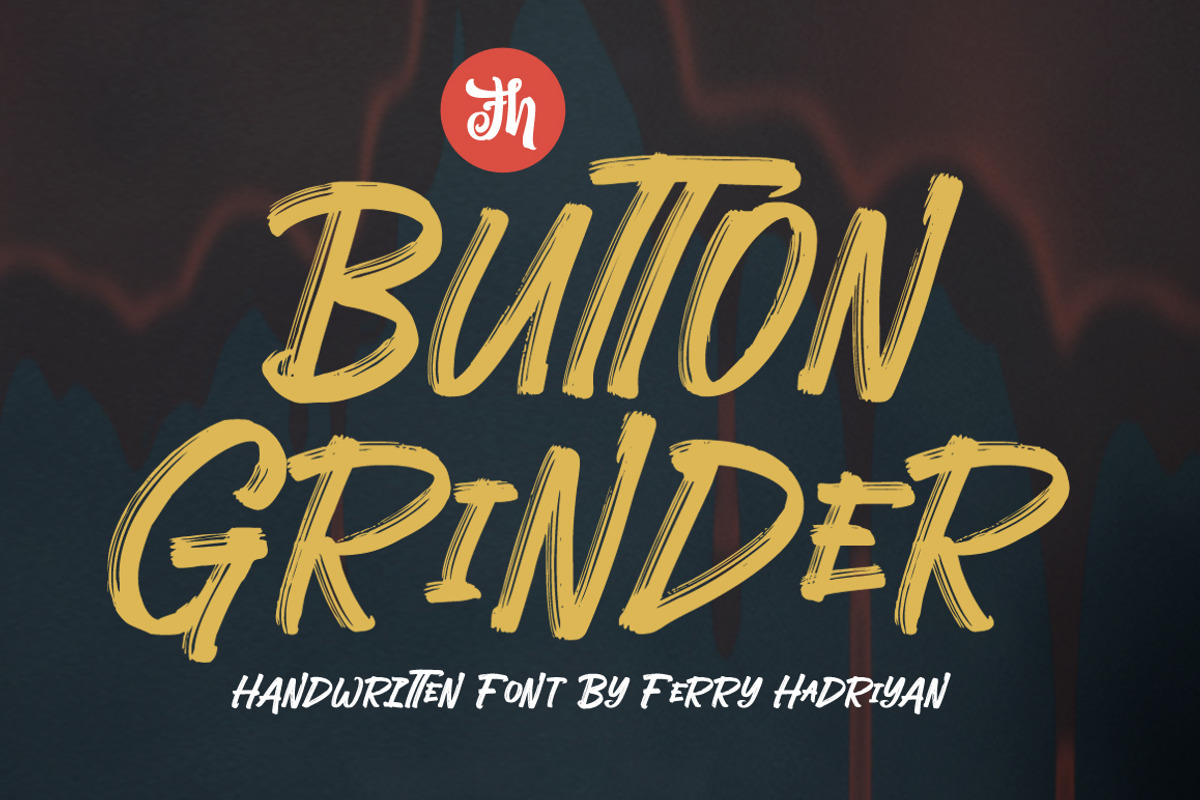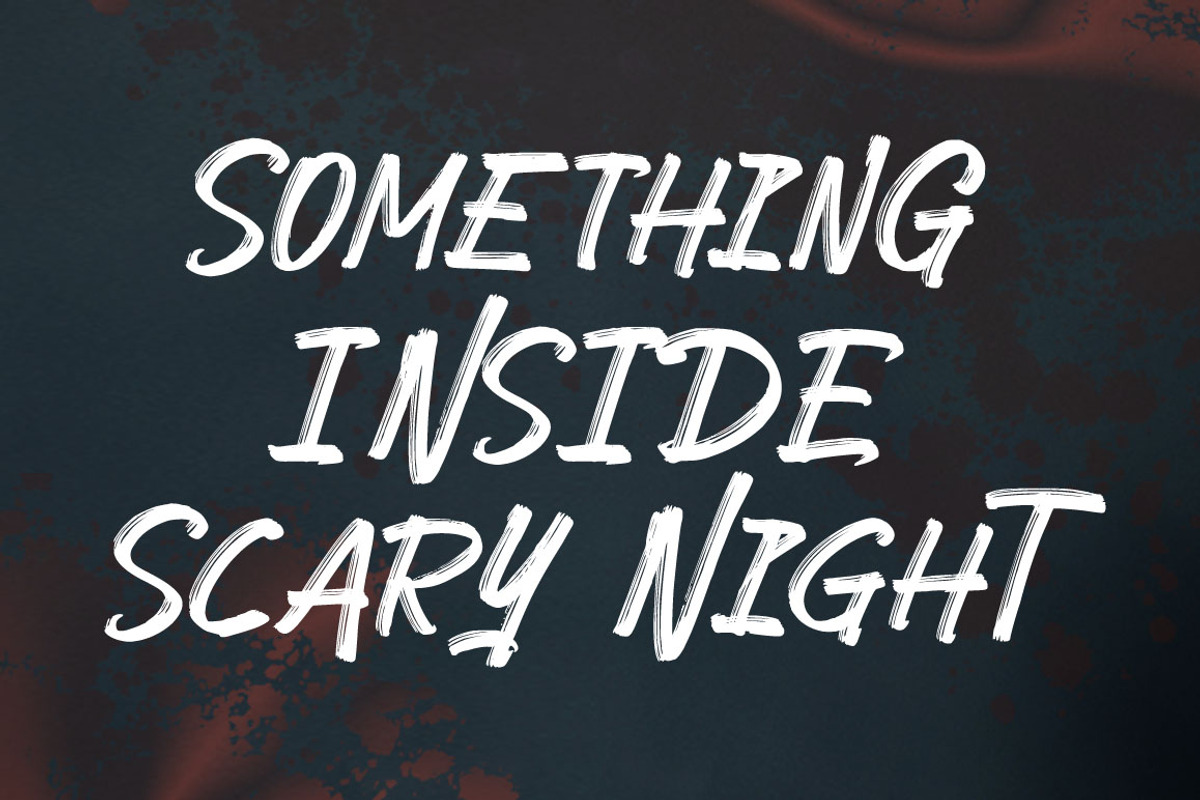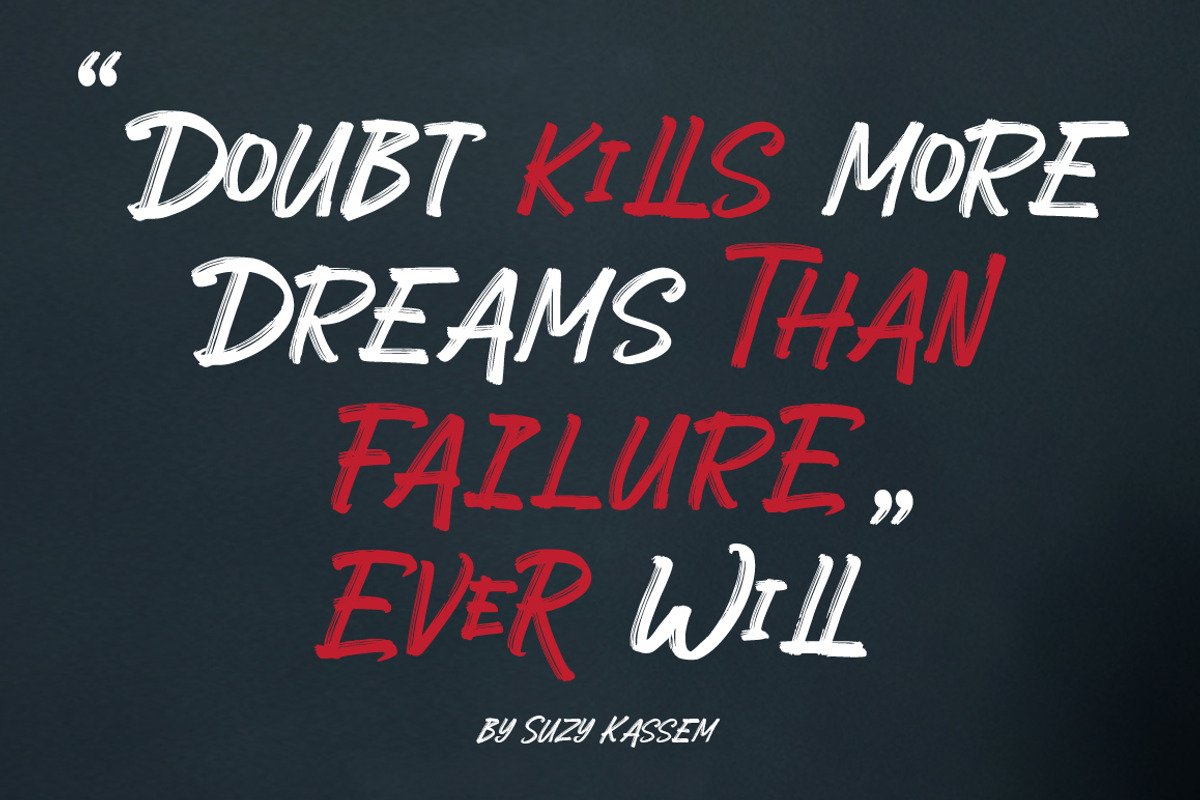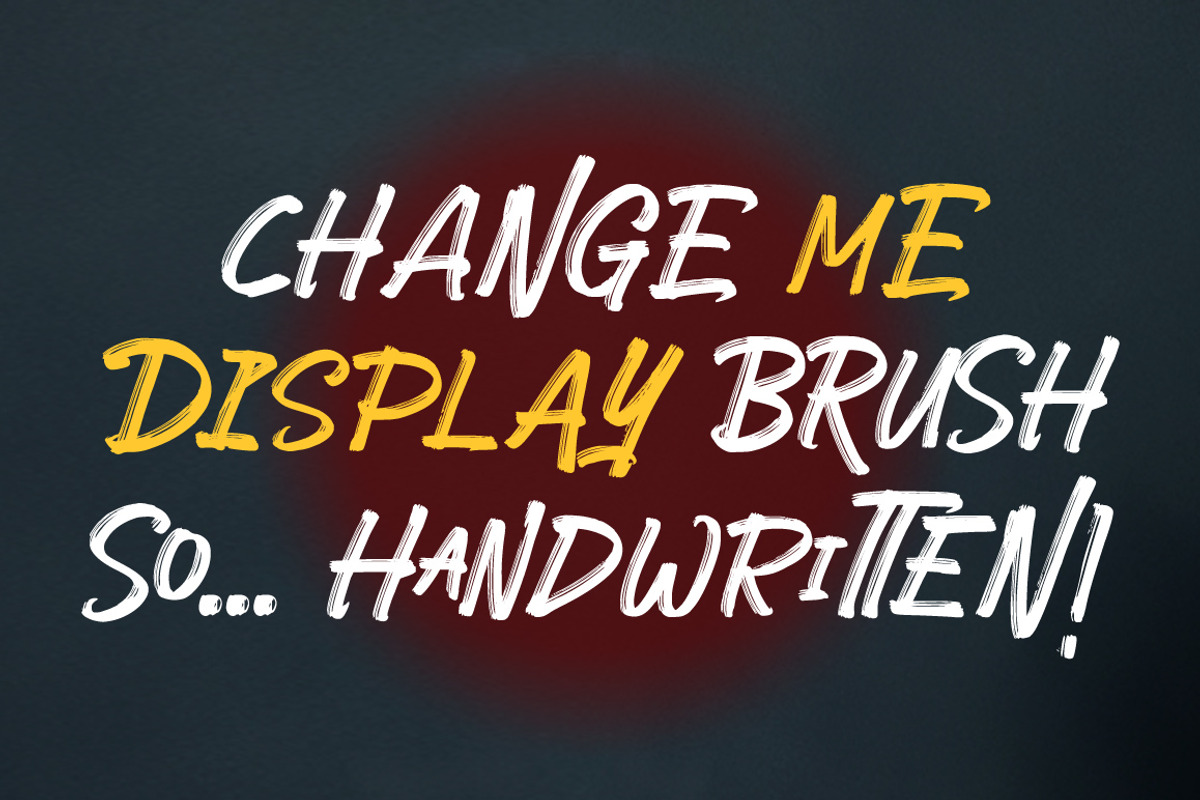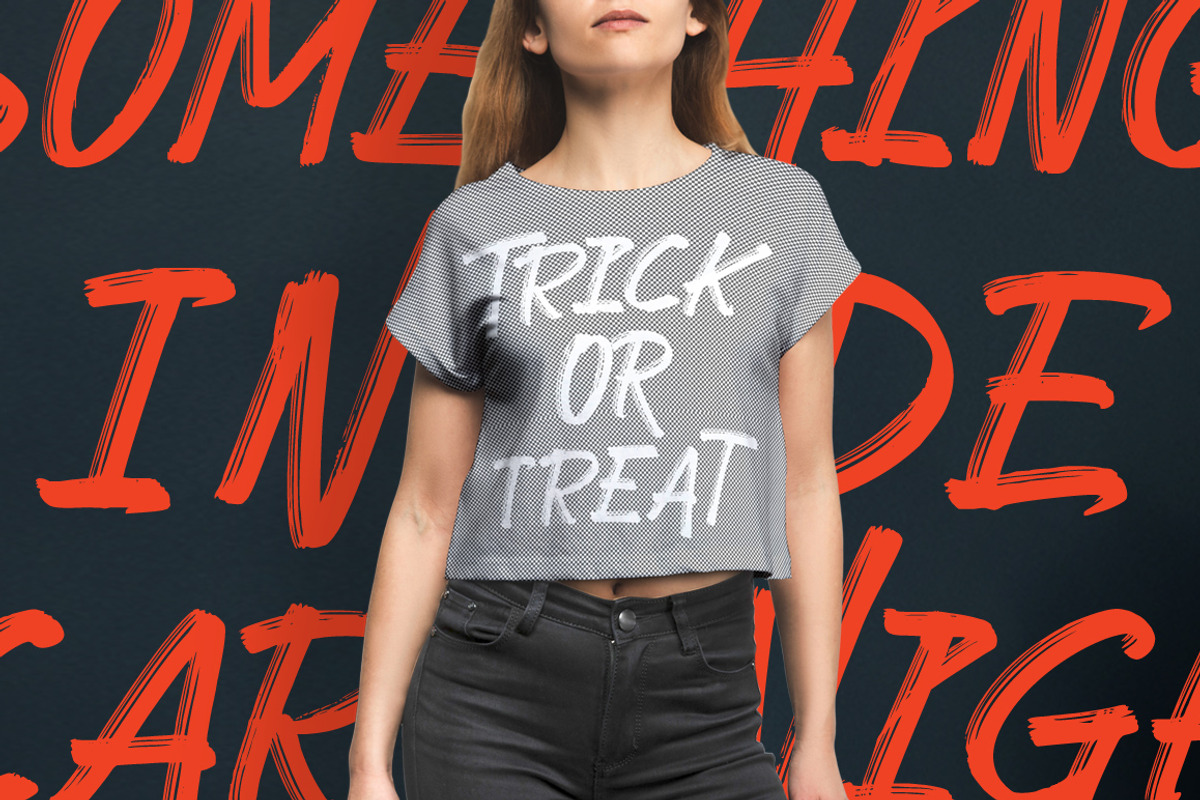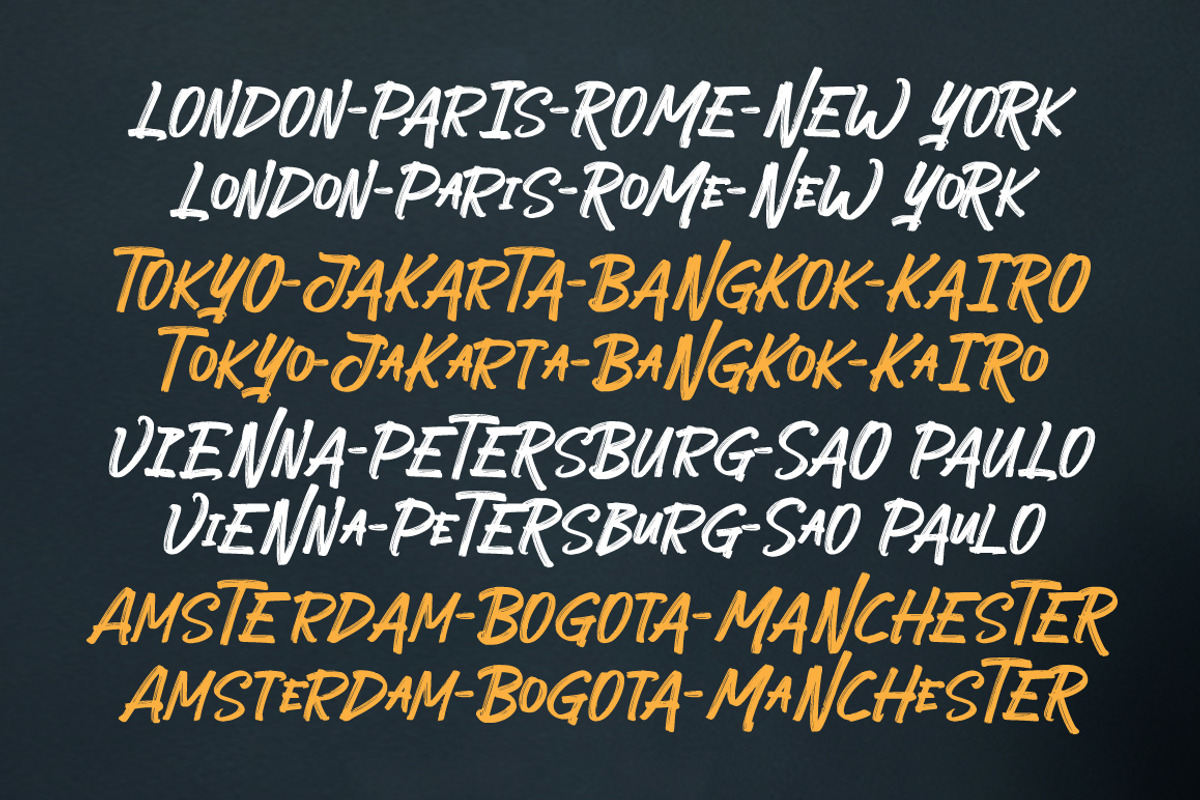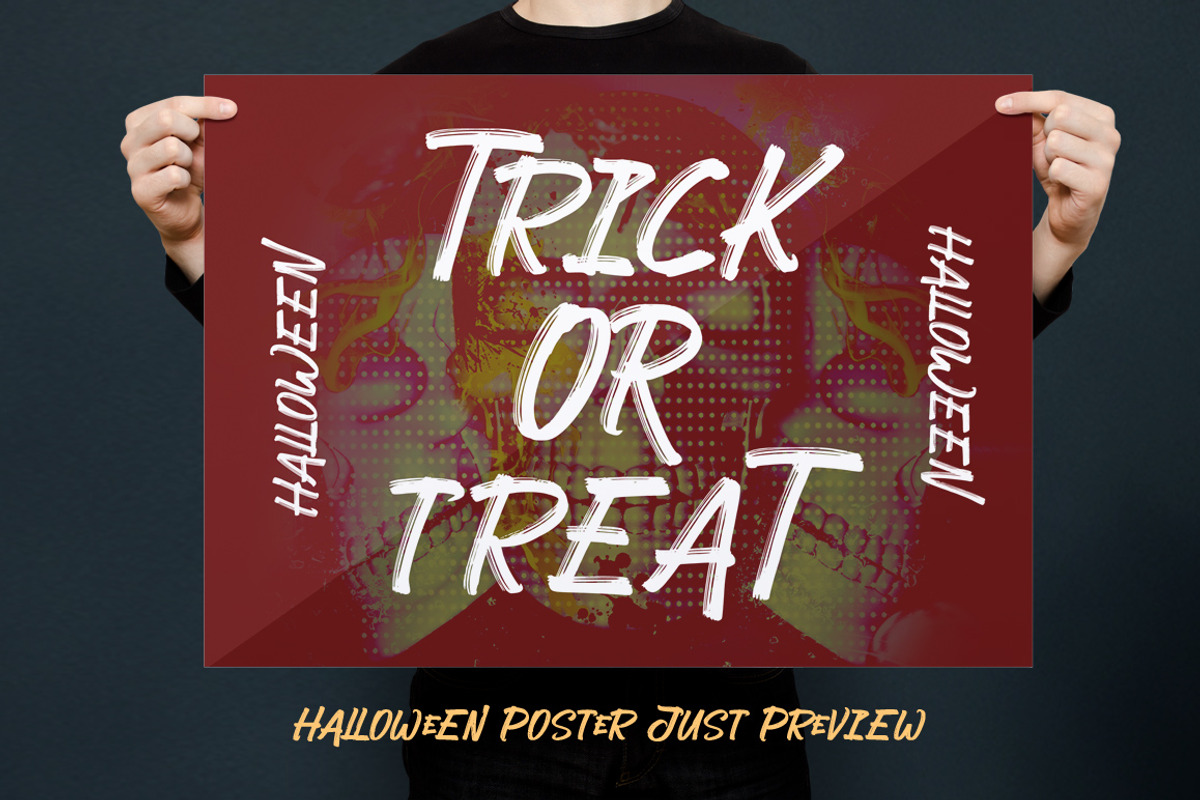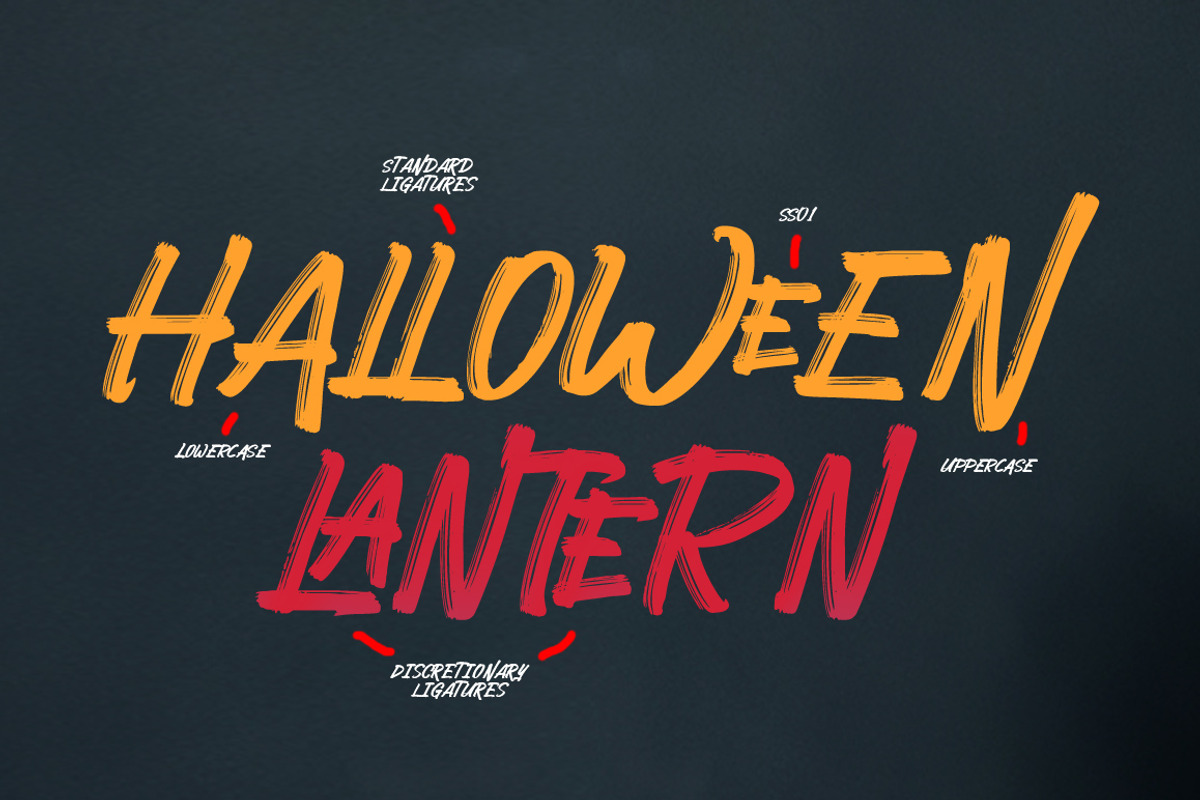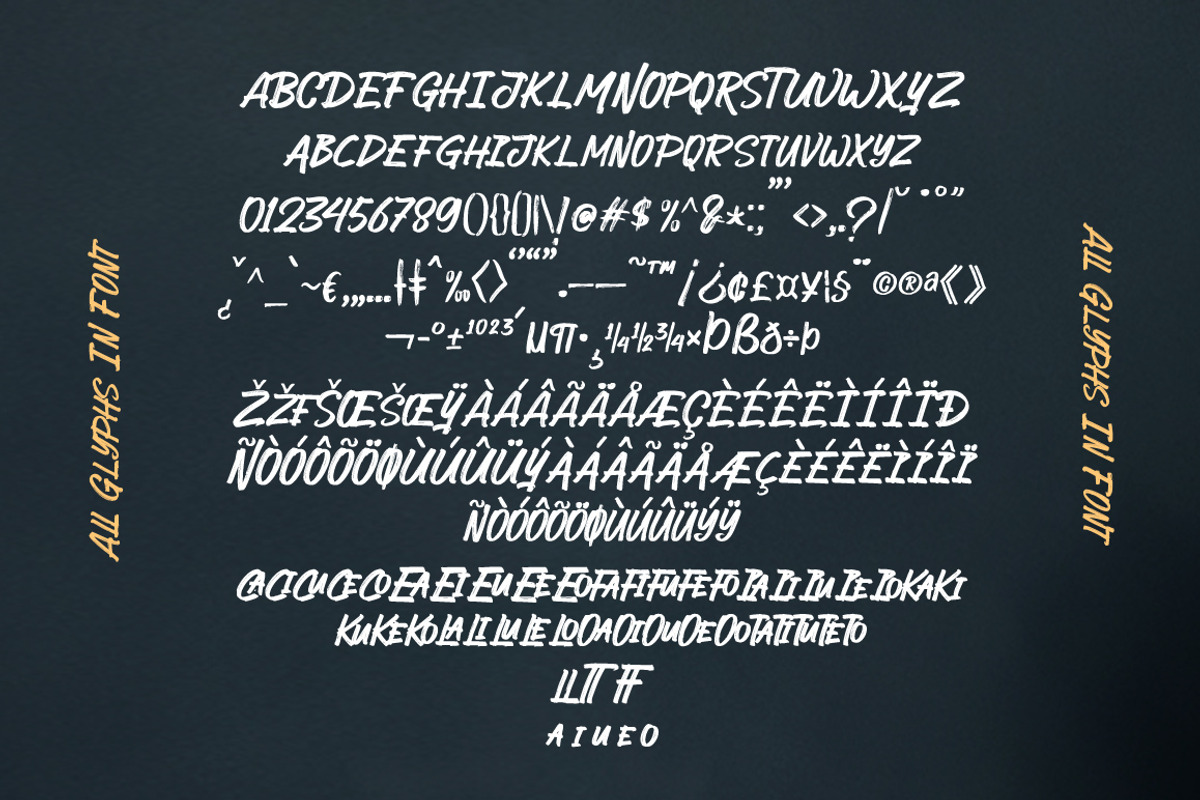
Button Grinder - Display Font
Button Grinder is display font with handwritten dry brush style, ispired by halloween event and grunge rock style, with opentype feature include of the font. Suitable for design, element design, wedding, event, t-shirt, logo, badges, sticker, and awesome work, etc...
All Standard Character, Symbol, Multilanguage, Ligature, Stylistic Set, and Swashes.
Unique style fonts